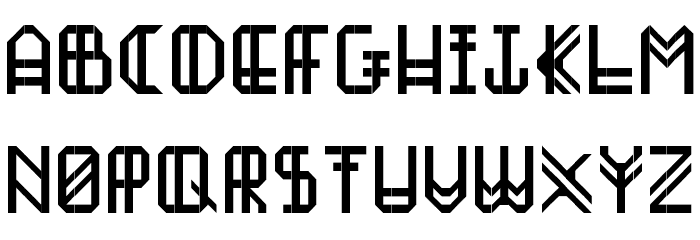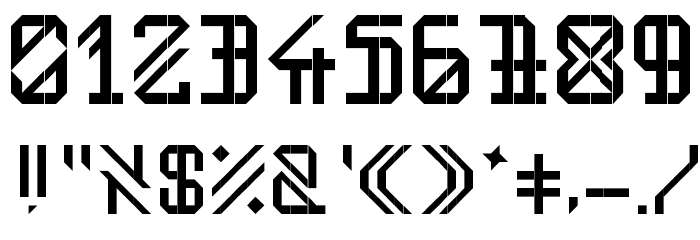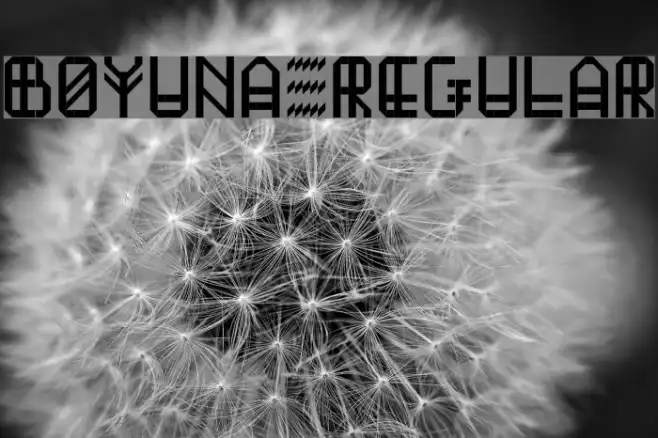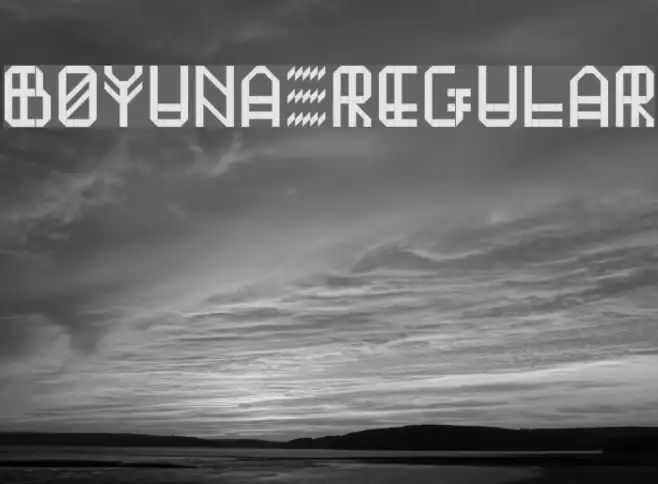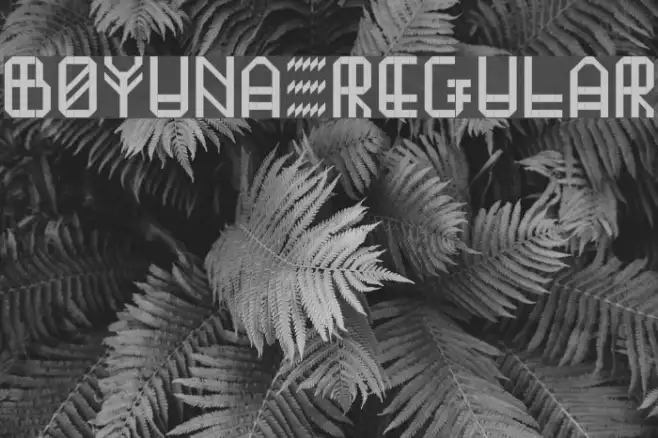
Boyuna Regular Font
This font features a bold and geometric design with a modern twist. Each character is constructed with angular lines and sharp edges, creating a futuristic and industrial feel. The uppercase and lowercase letters maintain a consistent style, with unique cut-out sections that add a dynamic and edgy appearance. Numbers and special characters follow the same design principles, ensuring a cohesive look across all elements. The font's distinct style makes it stand out, ideal for projects that require a strong visual impact.
A bold, geometric font with angular lines and a futuristic style.
- Proposed Projects: Ideal for branding, posters, album covers, and any project needing a modern, industrial aesthetic.